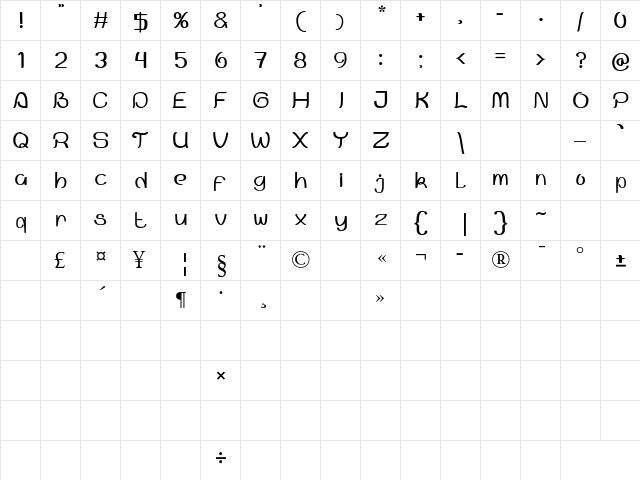
Pramudya Regular
Design Context for Pramudya Typeface
Pramudya offers clean, dependable letterforms without strong stylistic allegiance, making it a practical choice for designers who need flexibility.